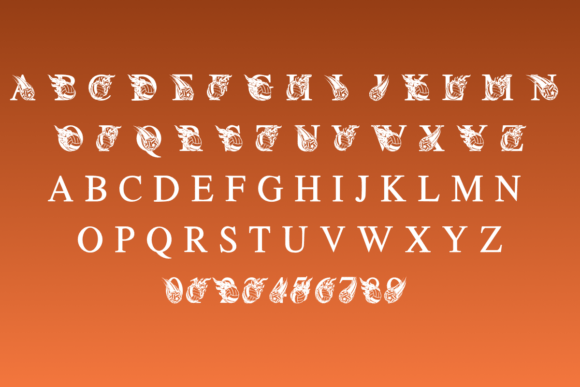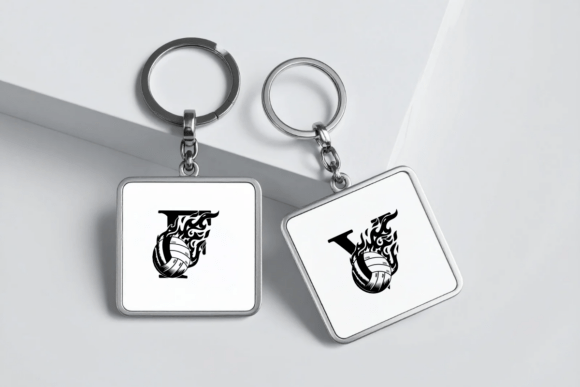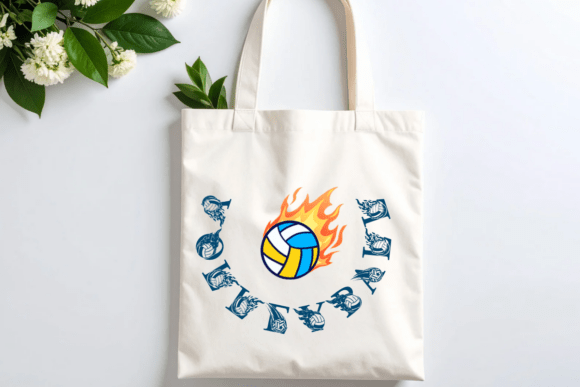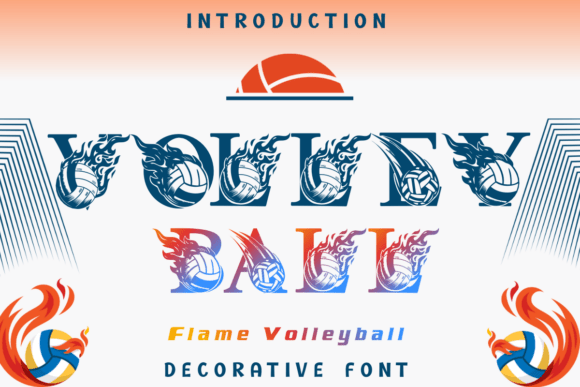
Introduction to Flame Volleyball Font
Feel the Heat: Flame Volleyball Decorative Font Ignite your sports designs with Flame Volleyball, an explosive decorative font built for speed, power, and competition.
This one-of-a-kind typeface integrates detailed volleyball illustrations wrapped in roaring flames directly into each character, creating a high-octane visual that perfectly captures the intensity of the game Set against a solid, authoritative serif base, Flame Volleyball is designed for maximum impact.